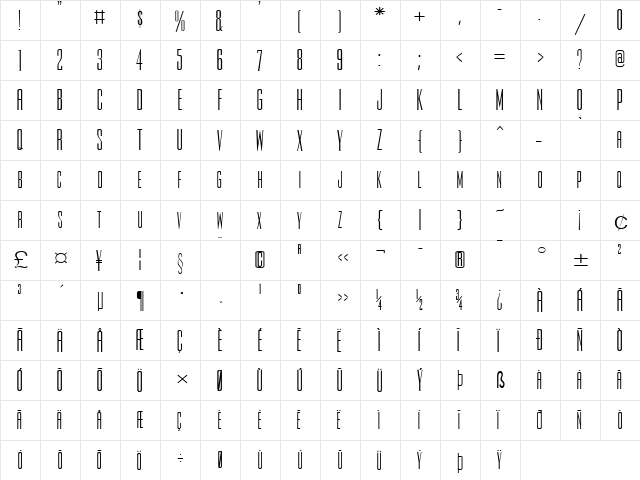
Slim-Jim-Extended Normal
Design Context for Slim-Jim-Extended Typeface
Slim-Jim-Extended offers clean, dependable letterforms without strong stylistic allegiance, making it a practical choice for designers who need flexibility.